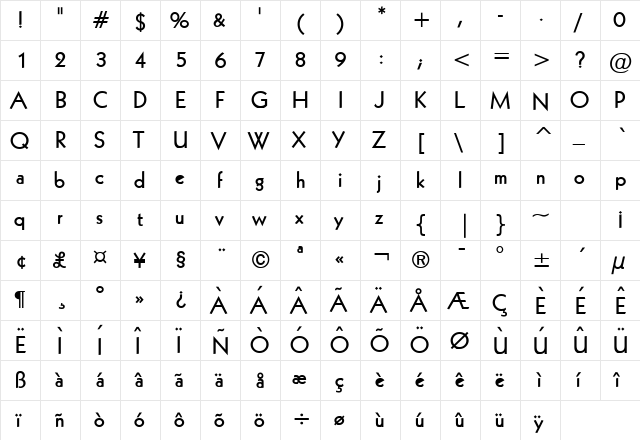
Geo 112 Bold Font Preview
Geo 112 Bold
Geo 112 Bold Font Details
Design Context for Geo 112 Typeface
Geo 112 offers clean, dependable letterforms without strong stylistic allegiance, making it a practical choice for designers who need flexibility. Its bold stroke weight gives it real presence on the page.